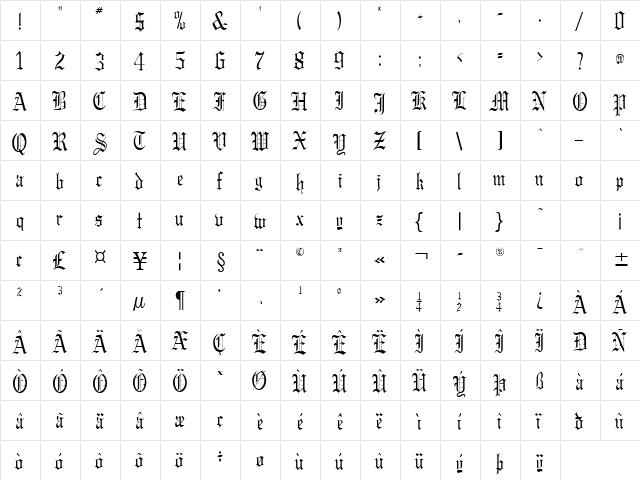
Gregory-Condensed Normal
Design Context for Gregory-Condensed Typeface
Gregory-Condensed takes a measured approach to typography — its balanced proportions and neutral character make it a reliable workhorse for both digital and print work. The condensed width makes it efficient for tight spaces without sacrificing legibility.